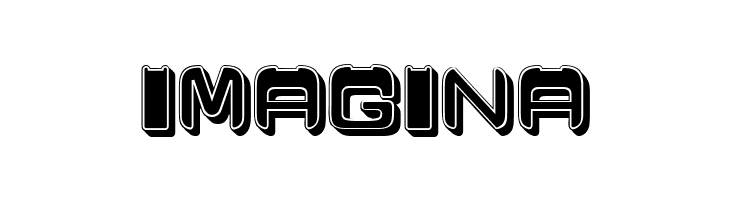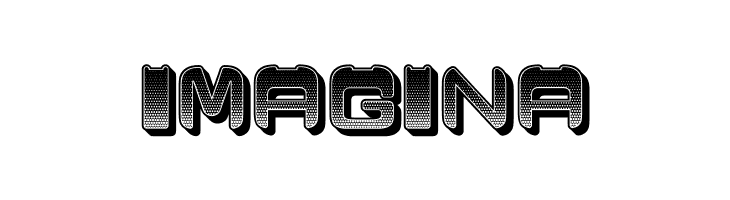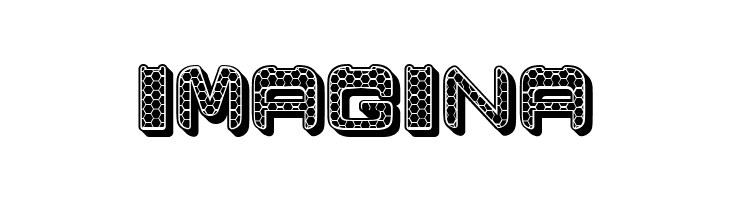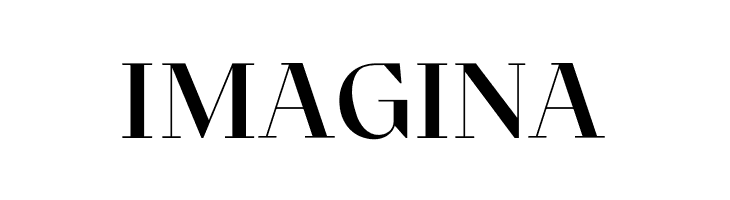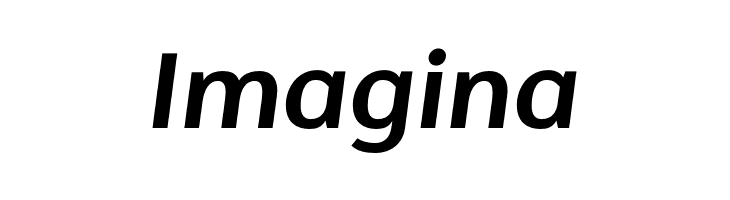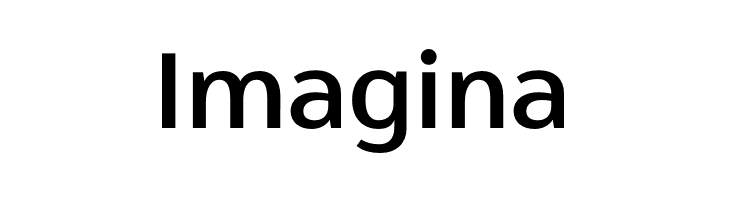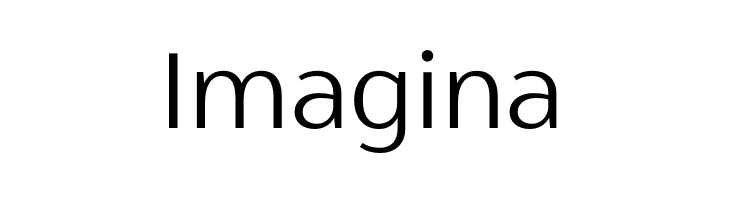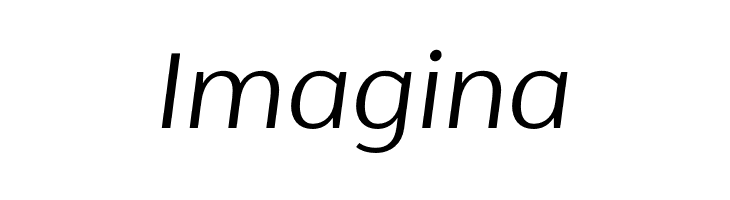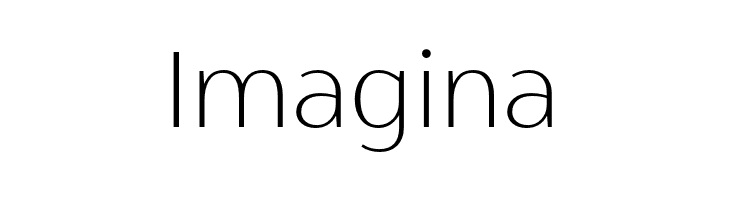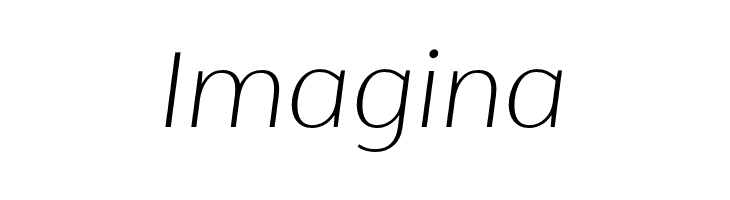
A bold, dynamic handwritten font with playful, artistic flair.
A playful, handwritten font with irregular strokes and a casual style.
A bold, brush script font with a textured, hand-painted look.
A whimsical and artistic font with dynamic, flowing characters.
A modern, clean sans-serif font with excellent readability.
A bold, modern sans-serif font with excellent legibility and uniform stroke width.
A bold, italic font with a modern and dynamic style.
A clean, modern sans-serif font with an extra light weight and balanced design.
A sleek, extra light italic font with a modern and elegant design.
A sleek, modern italic font with excellent legibility and a dynamic style.
A clean, modern sans-serif font with consistent stroke width and balanced proportions.
A modern, light, and italic sans-serif font with a sleek design.
A modern sans-serif font with geometric shapes and uniform strokes.
A modern, italic sans-serif font with medium weight and normal spacing.
A modern, semi-bold sans-serif font with excellent readability and balanced proportions.
A modern, semi-bold italic font with a sleek and dynamic design.
A modern, thin sans-serif font with a clean and elegant design.
A sleek, modern thin italic font with elegant strokes and a refined appearance.
A bold, textured font with an organic, splattered appearance.
A bold, hand-drawn font with a playful and artistic style.
A bold, futuristic font with a gradient effect and geometric style.
A bold, geometric font with a hexagonal pattern, offering a modern and futuristic style.
A bold, geometric font with a three-dimensional, layered outline effect.
A bold, playful font with rounded strokes and a slightly condensed style.
A classic serif font with elegant, sharp serifs and a refined appearance.
A classic serif font with elegant strokes and medium contrast.
A modern, angular font with sharp geometric lines and a dynamic slant.
A bold, hand-drawn font with an energetic and informal style.
A bold, grunge-style font with a distressed, artistic texture.
A bold, geometric font with angular elements and strong visual impact.
A bold, modern decorative font with unique geometric cutouts and expanded width.
A bold, decorative serif font with a vintage flair.
A bold, modern font with a unique cut-out style and high contrast.